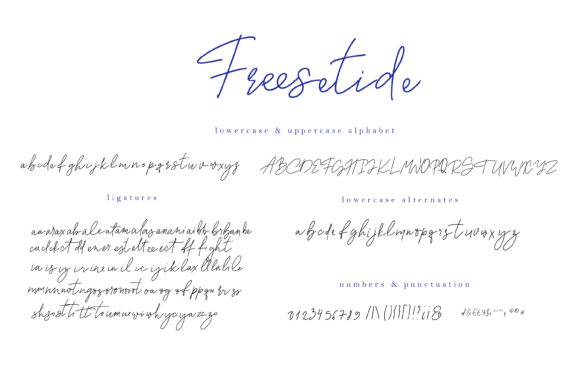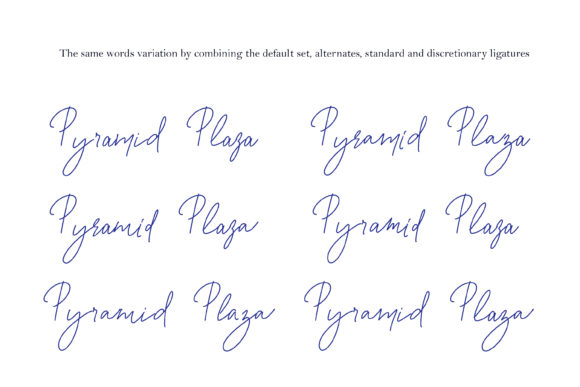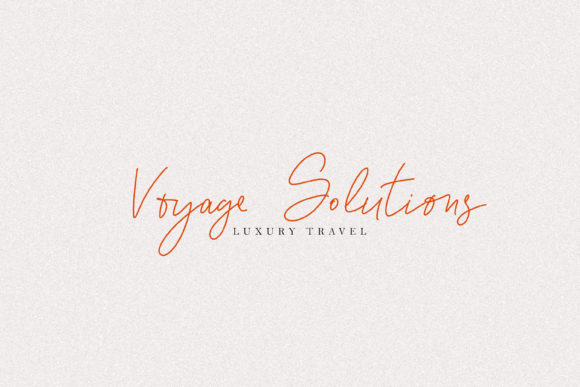
Introduction to Freezetide Font
Freezetide contains beautiful ligatures and alternatives that turn this script into a true standout.
Freezetide contains beautiful ligatures and alternatives that turn this script into a true standout!
Key Features of Freezetide Font
Why Choose Freezetide Font?
Freezetide Font offers exceptional quality and versatility, making it a valuable addition to your design toolkit. Whether you’re creating for personal projects or commercial use, Freezetide Font delivers professional results.